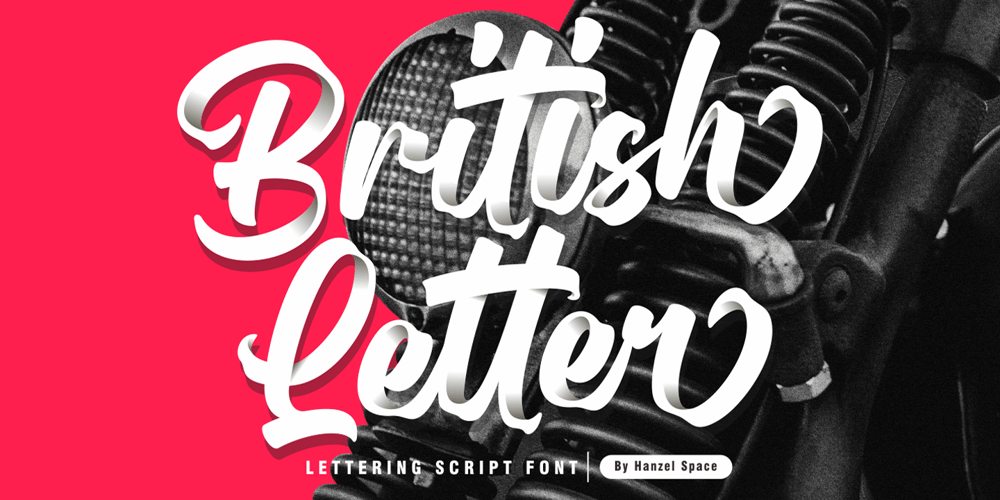
British Letter Font Family was designed by Hanief Farandi and published by Hanzel Space. British Letter contains 1 styles and family package options. Hello,Are you looking for a modern trandy script font? Do you want to create something that stands out and inspires endless creativity, imagination and fun? What are you waiting for, we will provide the best choice for you.British Letter a Lettering Script, Inspired by brush lettering style typography. This font is perfect for designs which makes it more interesting and fun. We designed this font in such a way that it is suitable when used for design projects so that it looks very attractive. And you can also use this font for logos, branding, brochures, names on product packaging and so on.FEATURES : Uppercase Lowercase Number Punctuation Multilingual PUA Encode Opentype